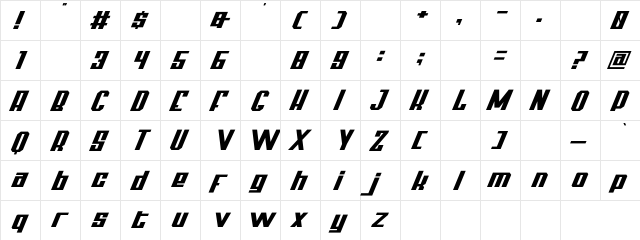
Thunderbold Demo Regular
| Foundry | Gartype Studio |
| Designer | Gumilang Anggara Ruslan |
Design Context for Thunderbold Demo Typeface
Thunderbold Demo is a composed and adaptable typeface that performs quietly and consistently across a wide range of design contexts. The heavy weight commands attention and anchors typographic hierarchies.